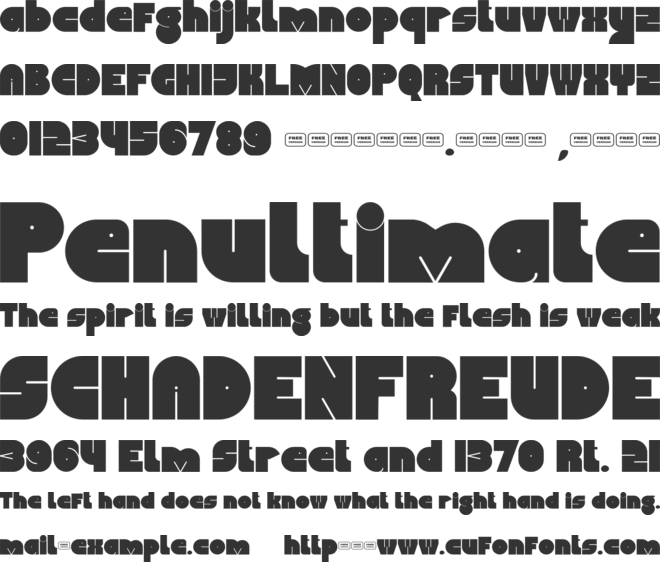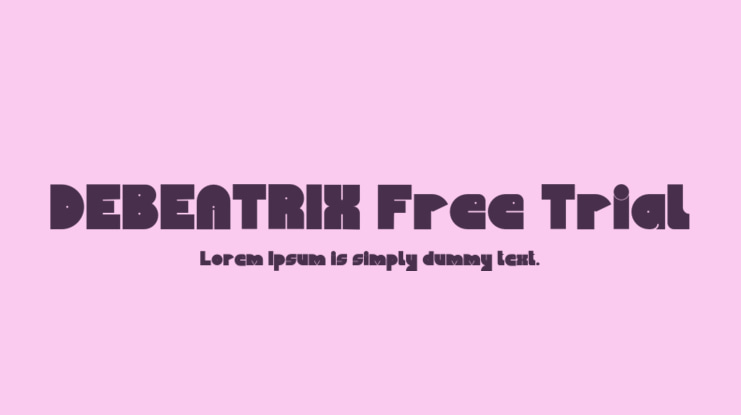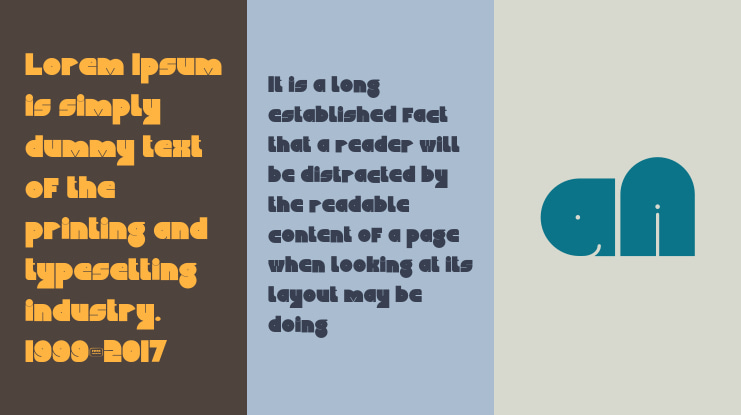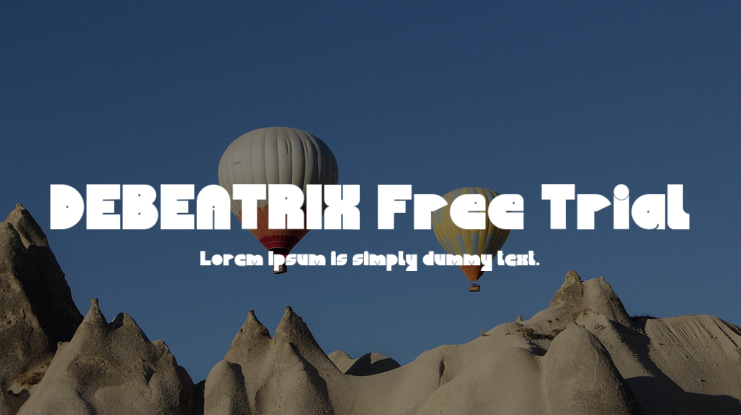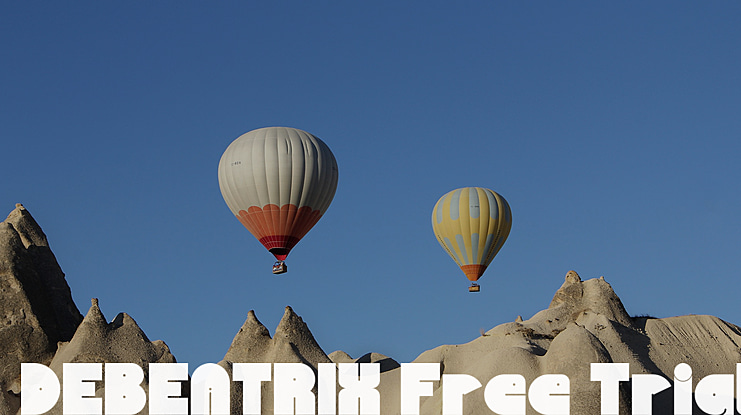
DEBEATRIX Free Trial Font
Debeatrix is a display typeface, carefully handcrafted to become a true favorite.
Its casual bold font charm makes it appear wonderful down-to-earth, readable, ultimate, and versatile.
This font will look outstanding in any context, whether it’s being used on busy backgrounds or as a standalone headline especially on aesthetic design!